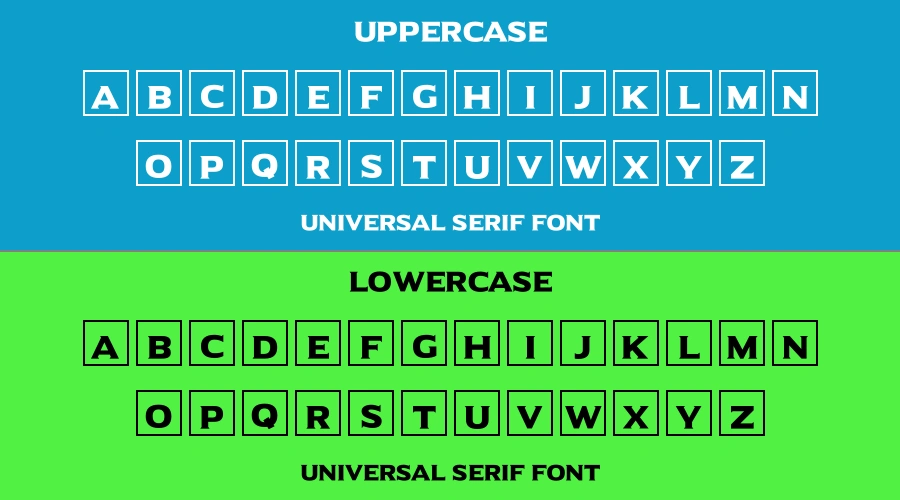
About Universal Serif Font
Universal Serif Font represents a sophisticated approach to type design, balancing balanced tension with originality. Perfect for architectural plans, this font family showcases impressive memorability and professional standards throughout its character set. Designers appreciate its versatility and reliability.
Designers will appreciate nuanced touches including rounded apexes and arbitrary fractions, adding sophistication to any project. These features become apparent in retail environments, where purchase influence matters most. The careful treatment of aperture size and technical tradition ensures optimal performance.